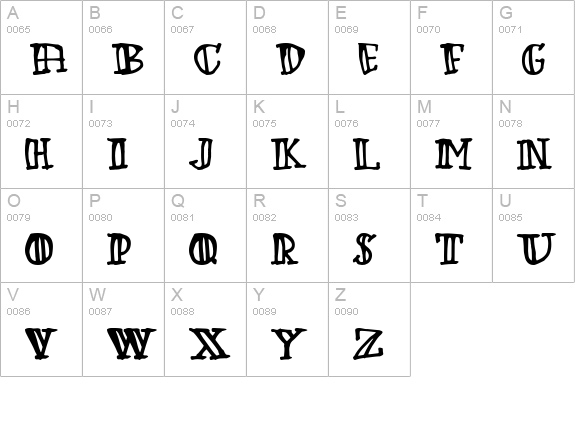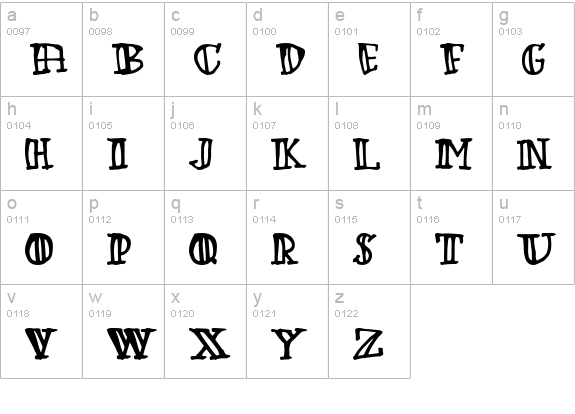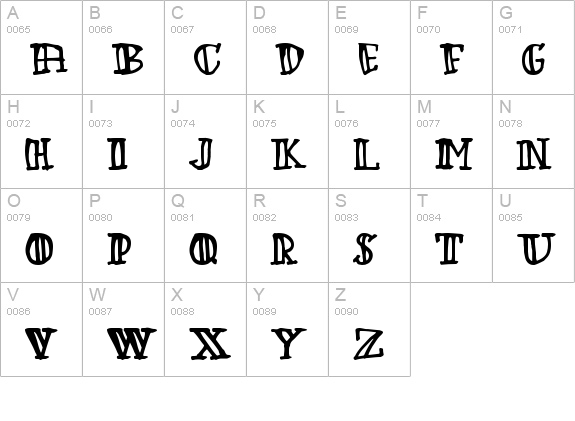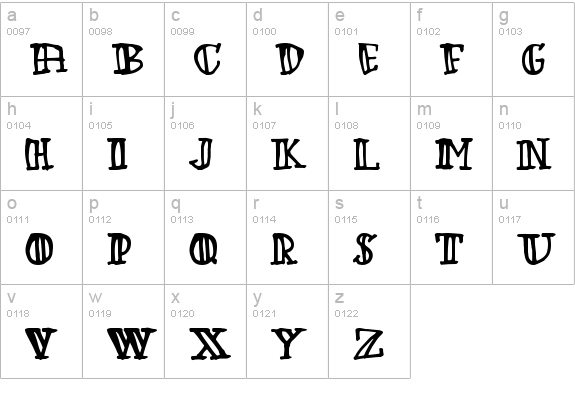
Green Babe font is a charming and versatile typeface that exudes a sense of playfulness and creativity. With its unique curves and stylish details, this font is perfect for a wide range of design projects, from invitations to branding to social media graphics. The soothing green color of the font adds a touch of nature and freshness to any design. What's even better is that Green Babe font is available for free download at FontsMarket.com! Whether you're a seasoned designer looking to add a new font to your collection or a beginner searching for the perfect typeface for your project, Green Babe font is a fantastic choice that won't cost you a penny. Download it today and let your creativity flow with this delightful and eye-catching font.